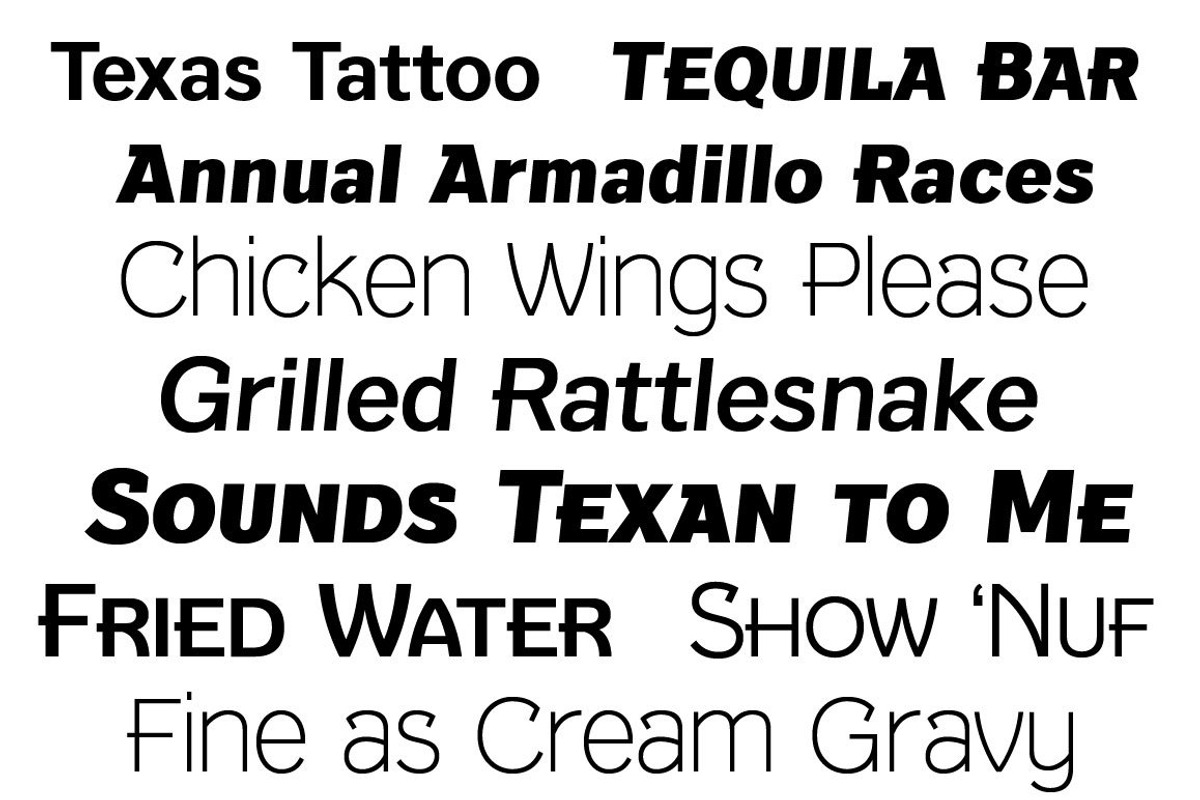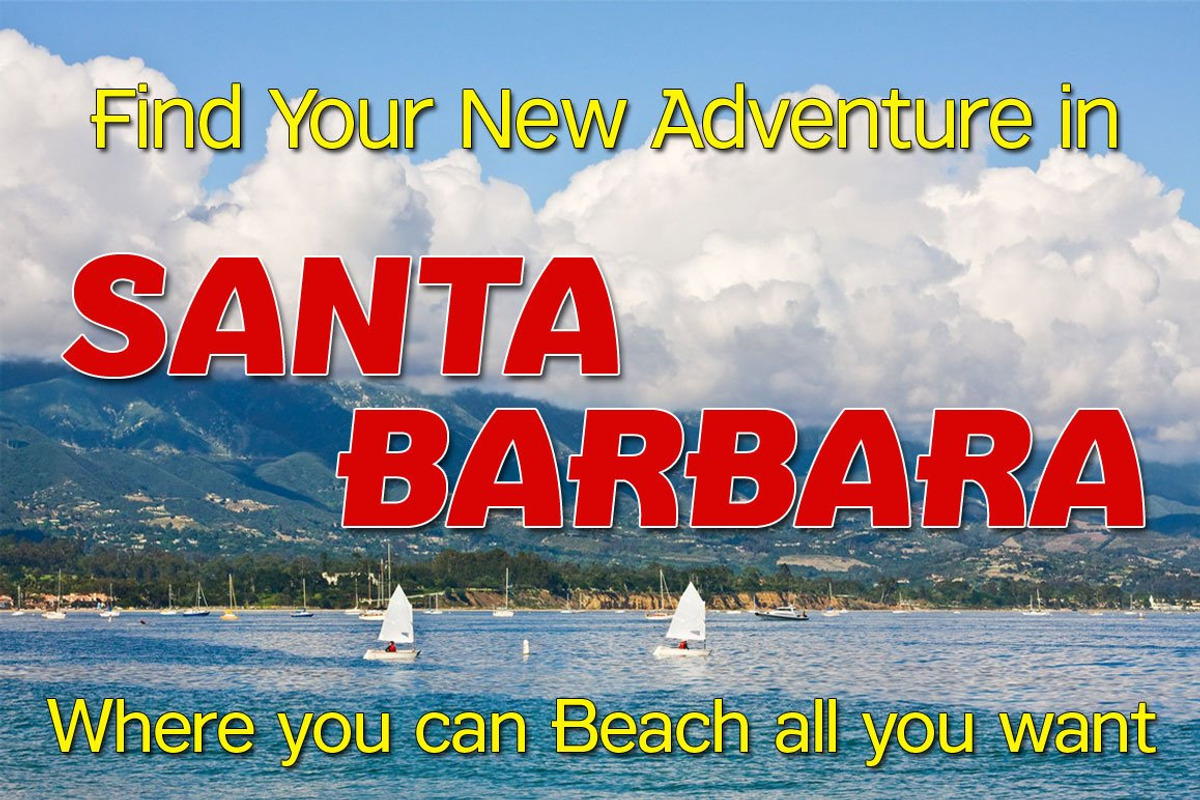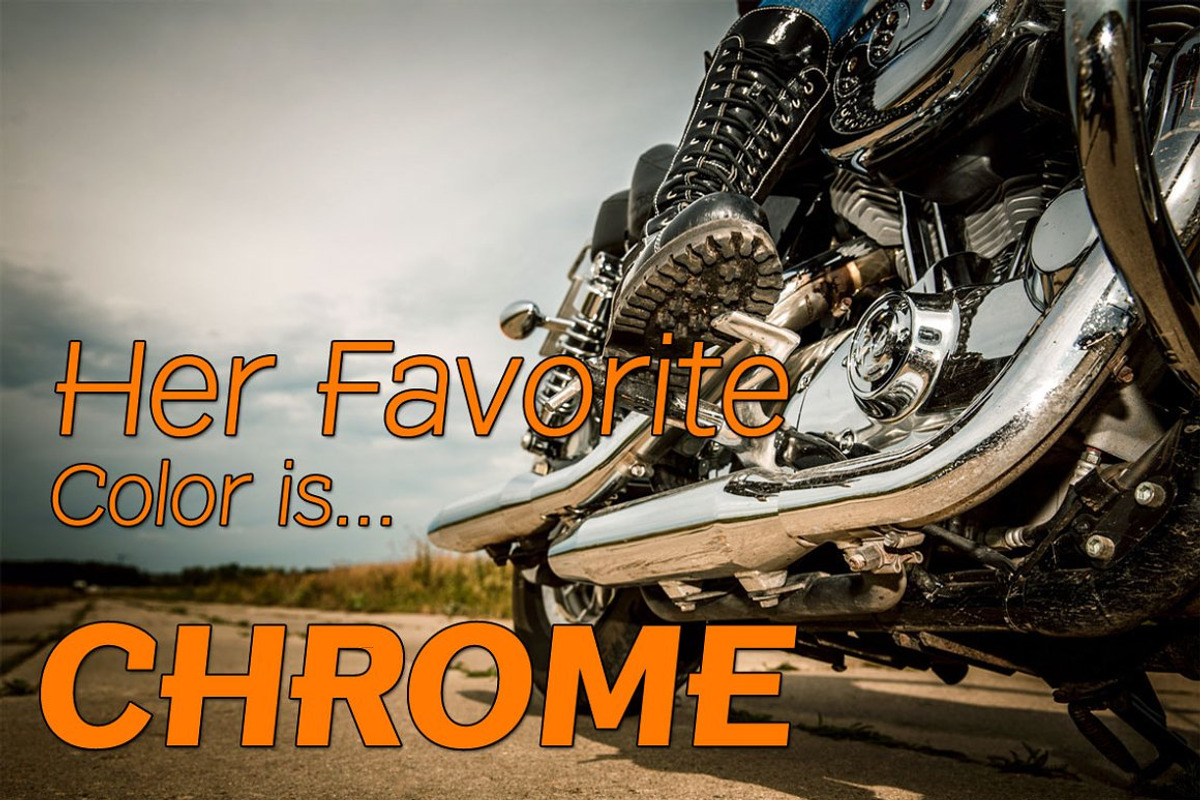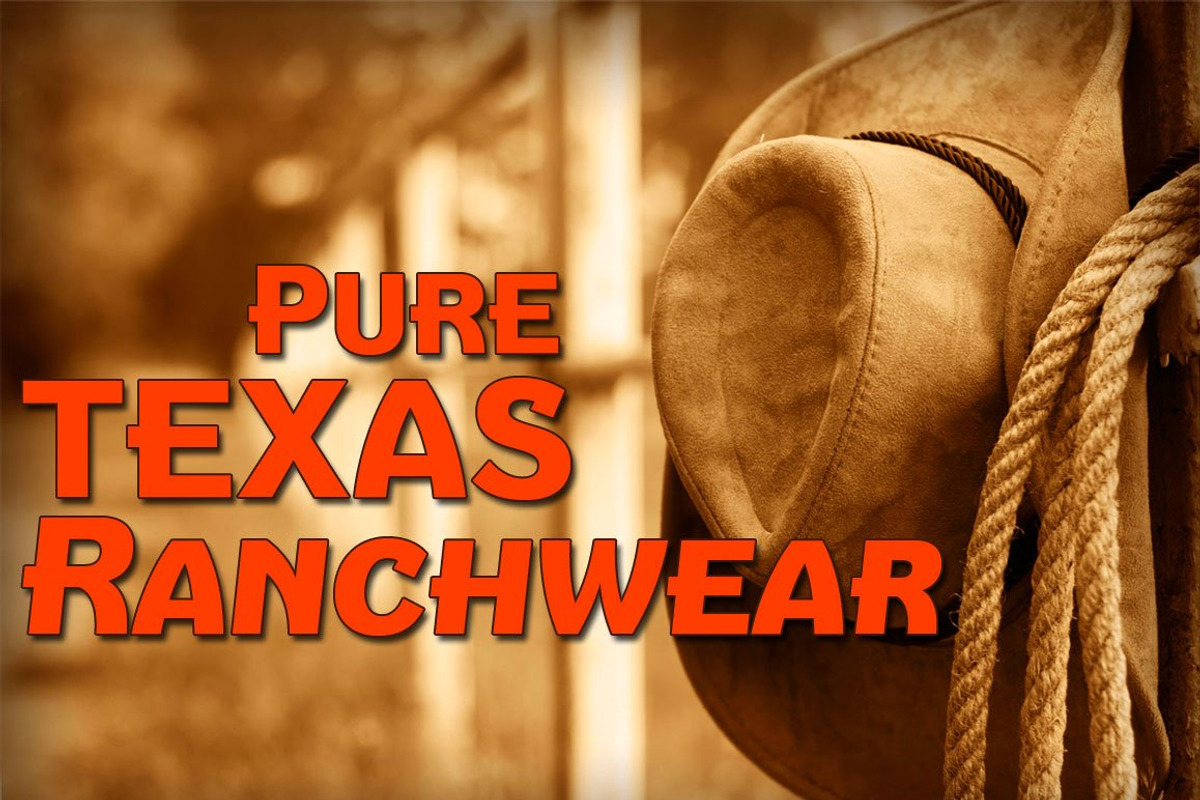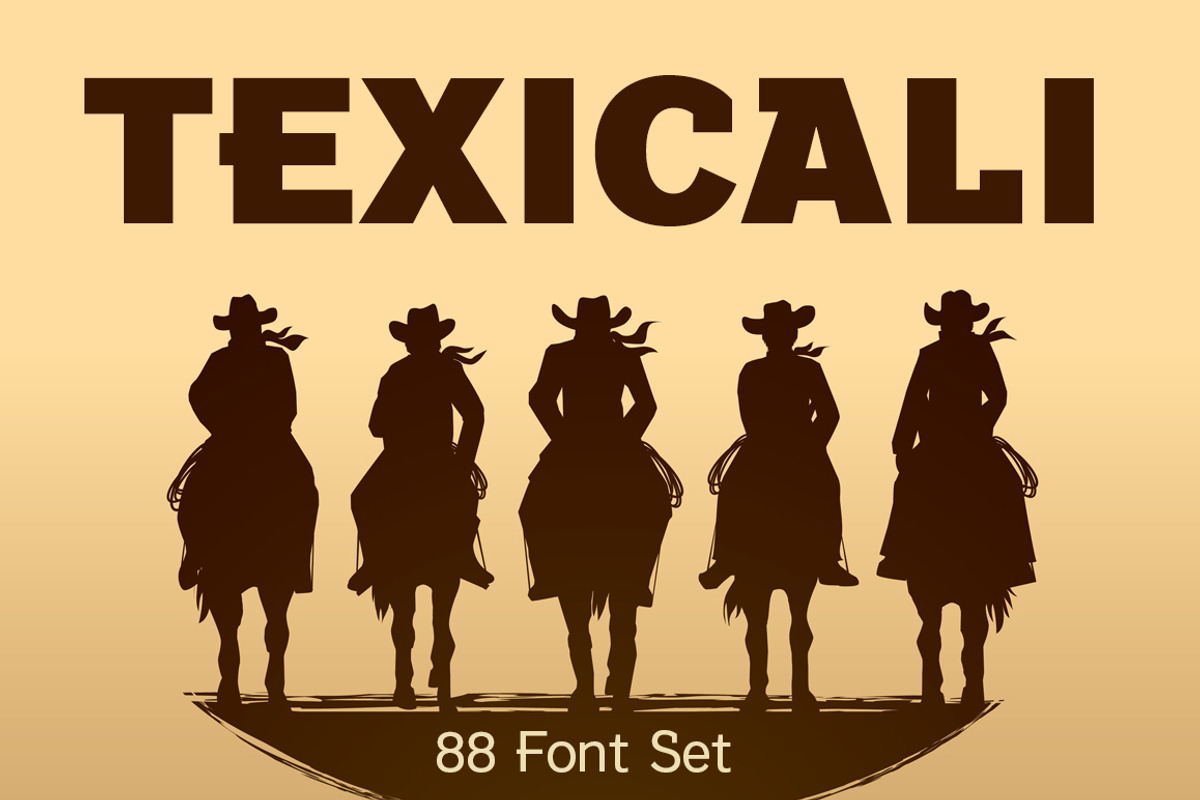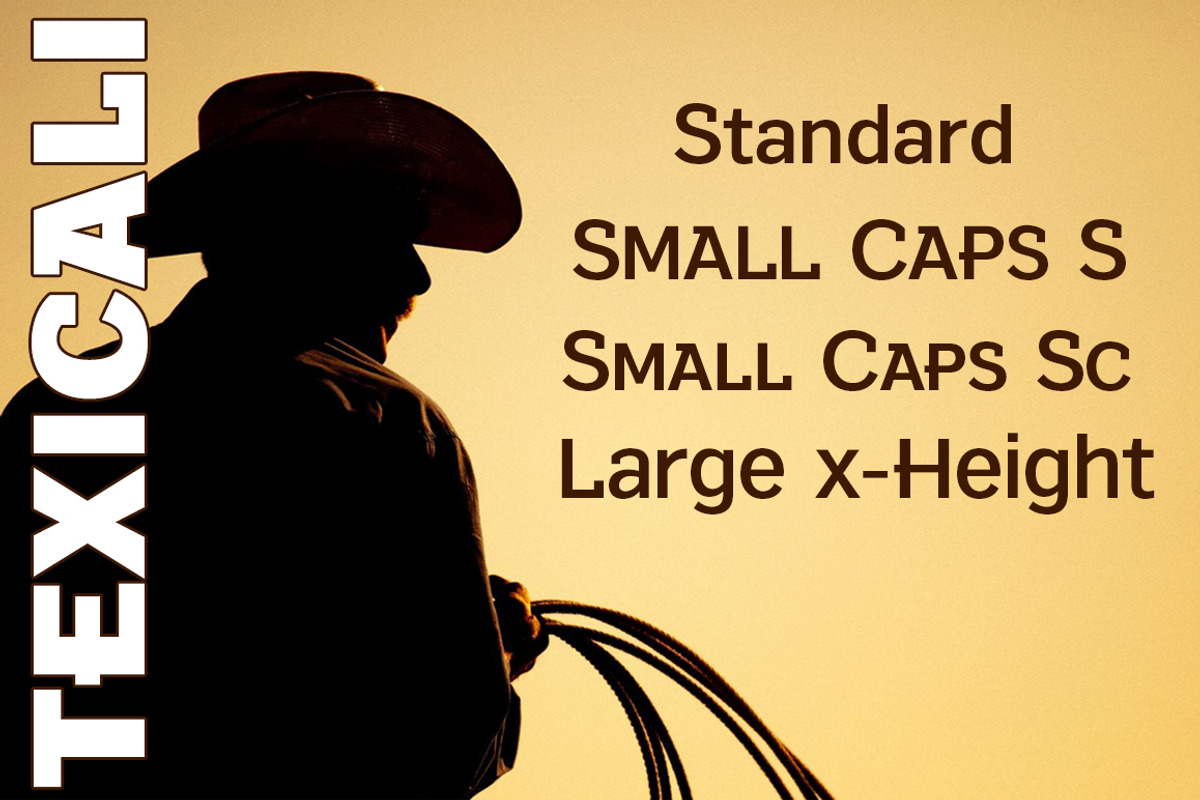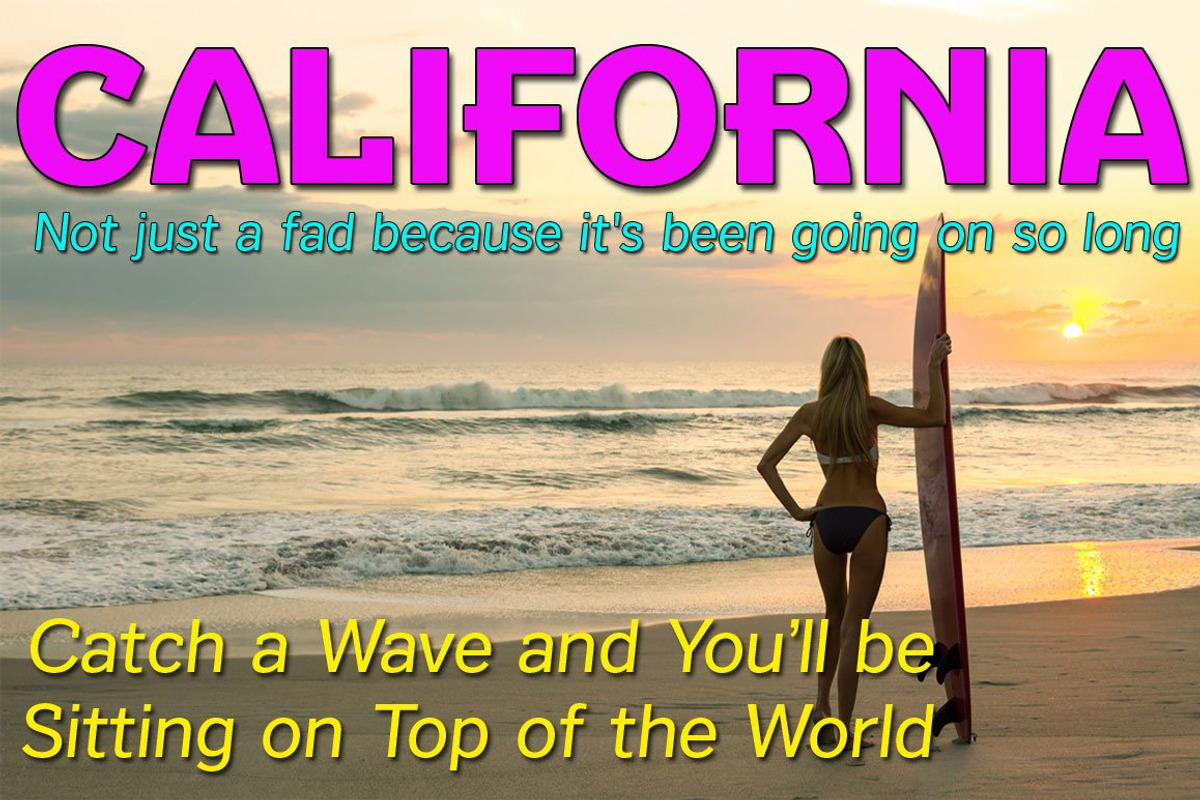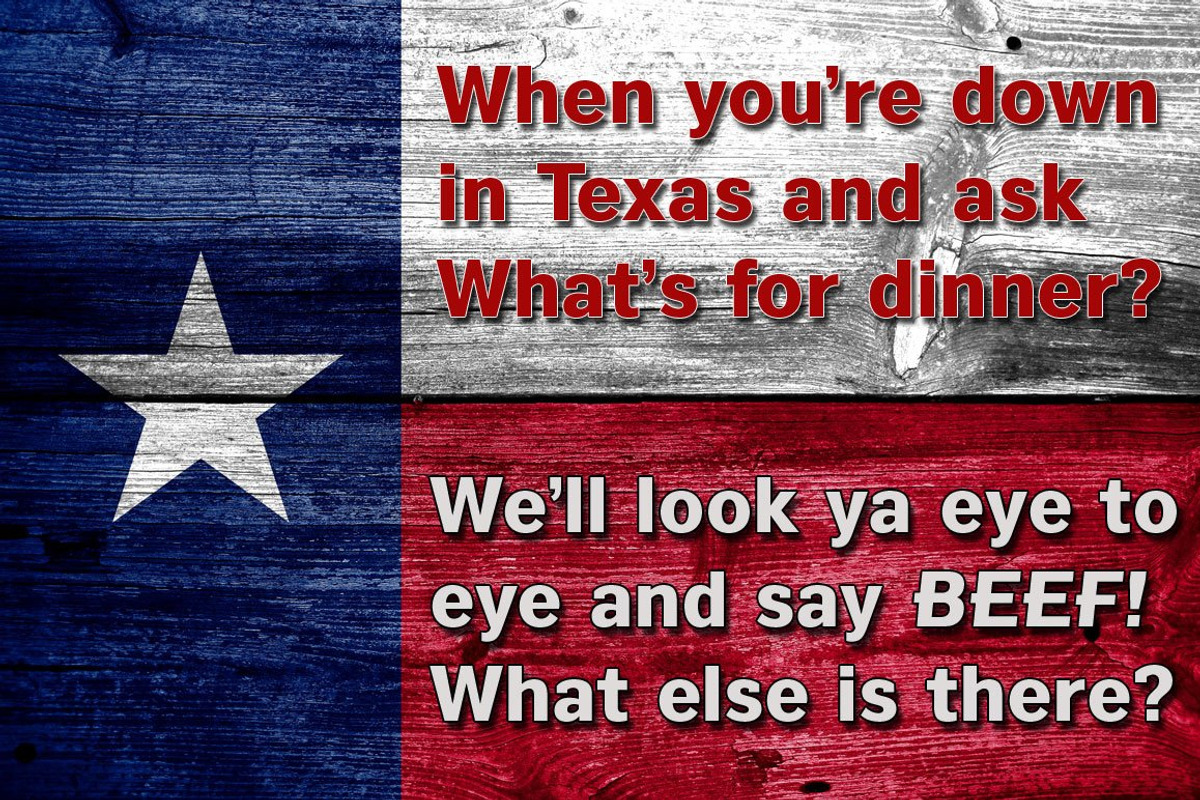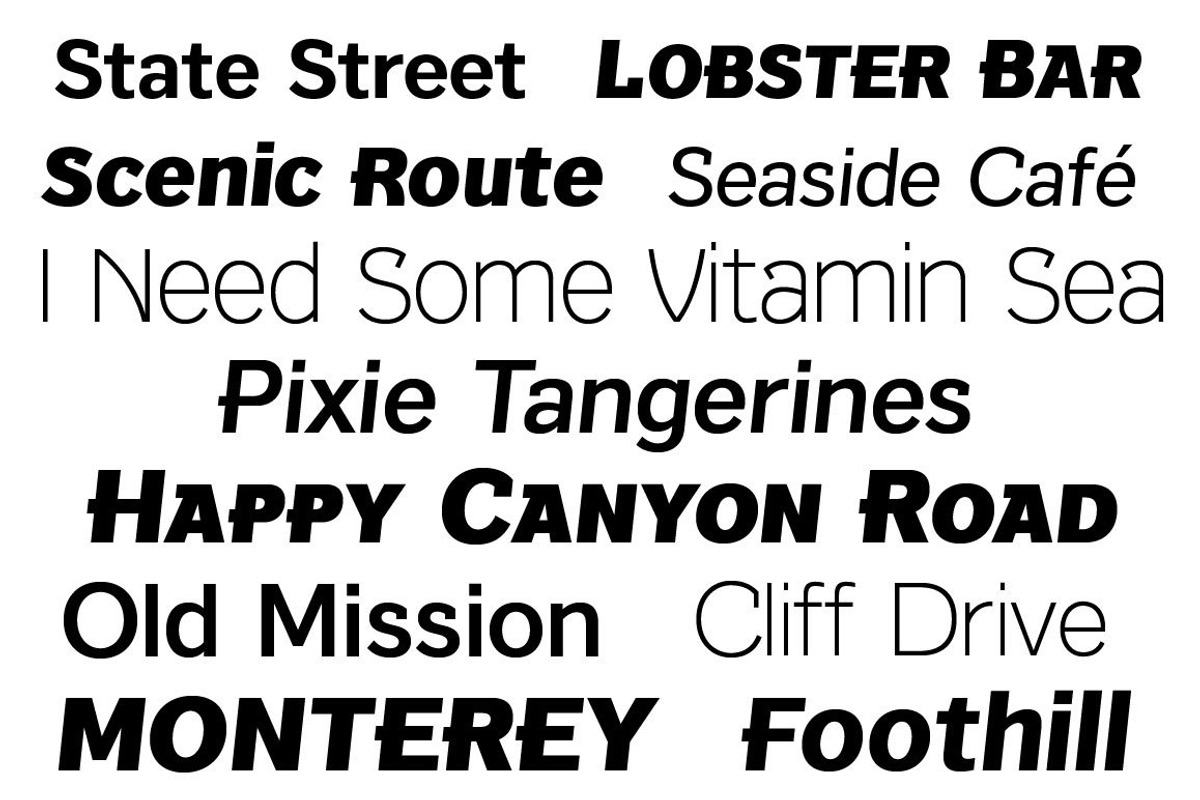
Texicali 88 Font Set
Texicali is a multiple weight type design based on our FontMesa logo.
The idea was simple: create a sans serif with a few slab serifs added resulting in a style that could feel at home just about anywhere.
Texicali 88 font family includes all the weights in Texicali Regular/Standard, Texicali S, Texicali SC, Texicali X.
The Standard set works well for general use while the Alt set is perfect for when you want to add a little country charm.
The S and SC version works great for headlines
The X version, with its higher x-height lowercase, is ideal for signage where you want the look of a lowercase, however your sign still needs to be readable from the street.